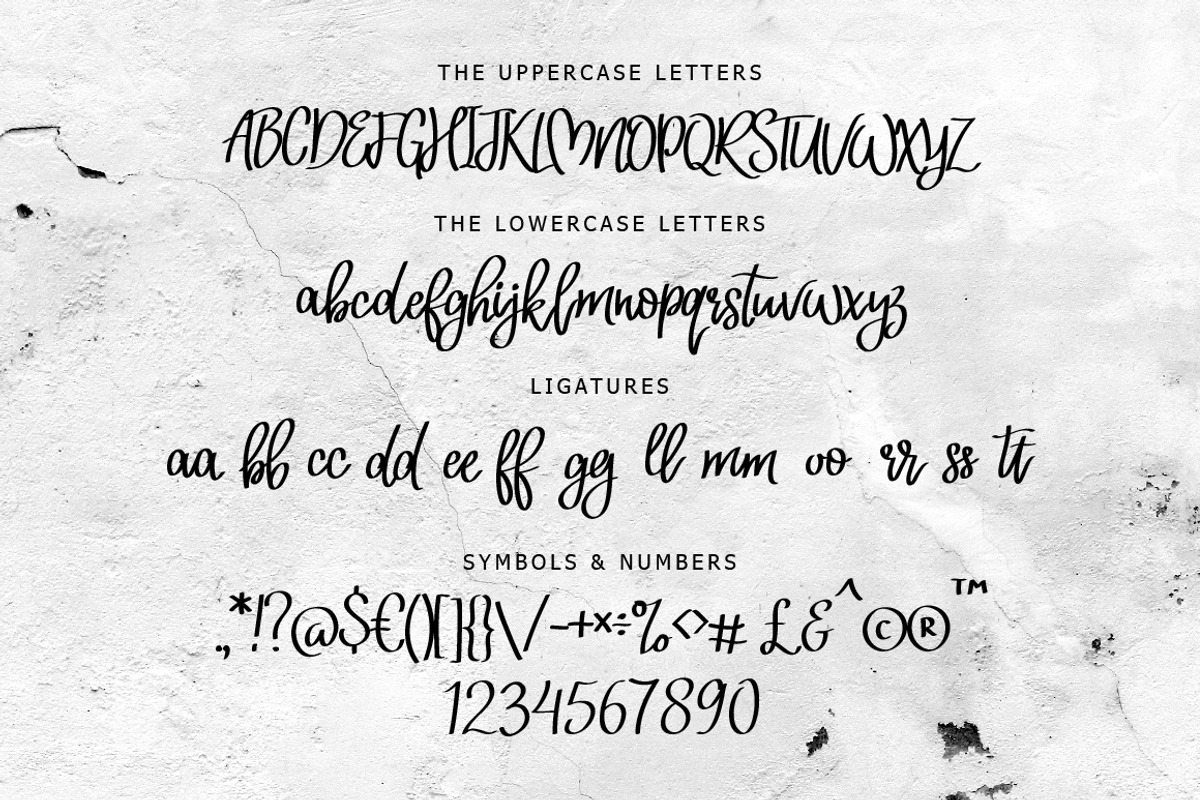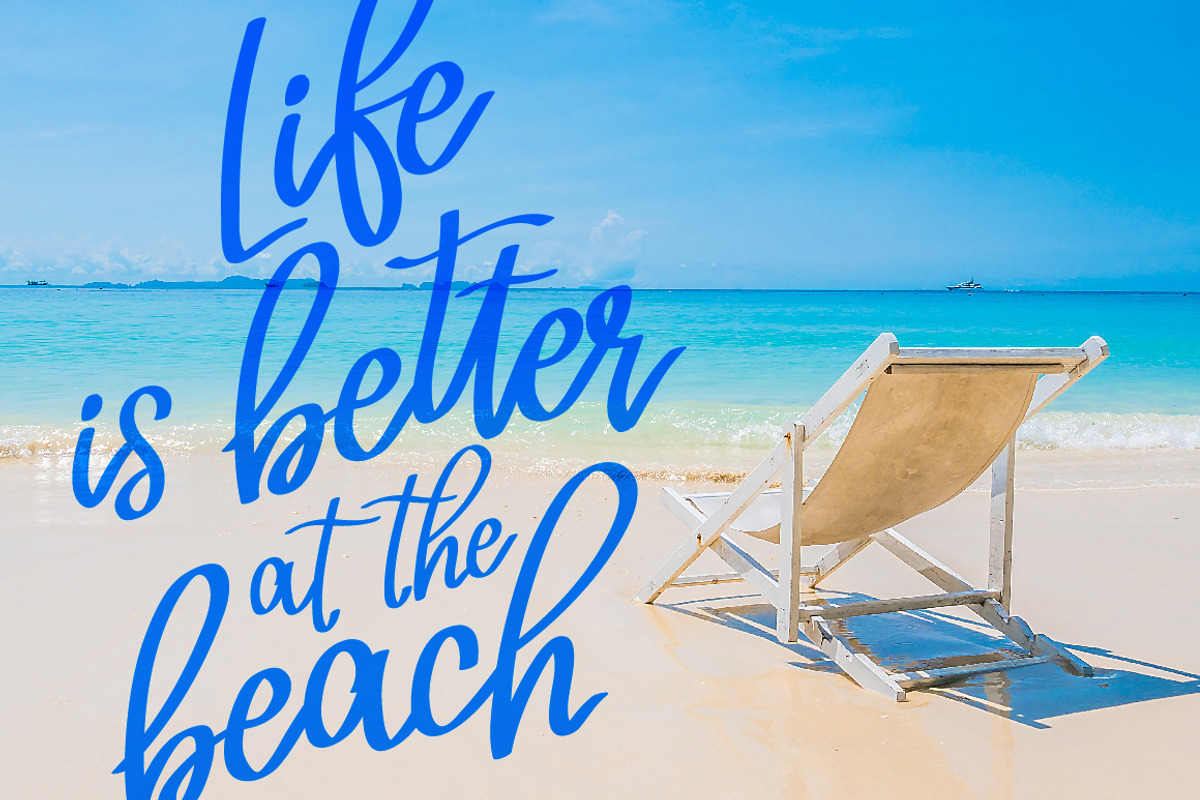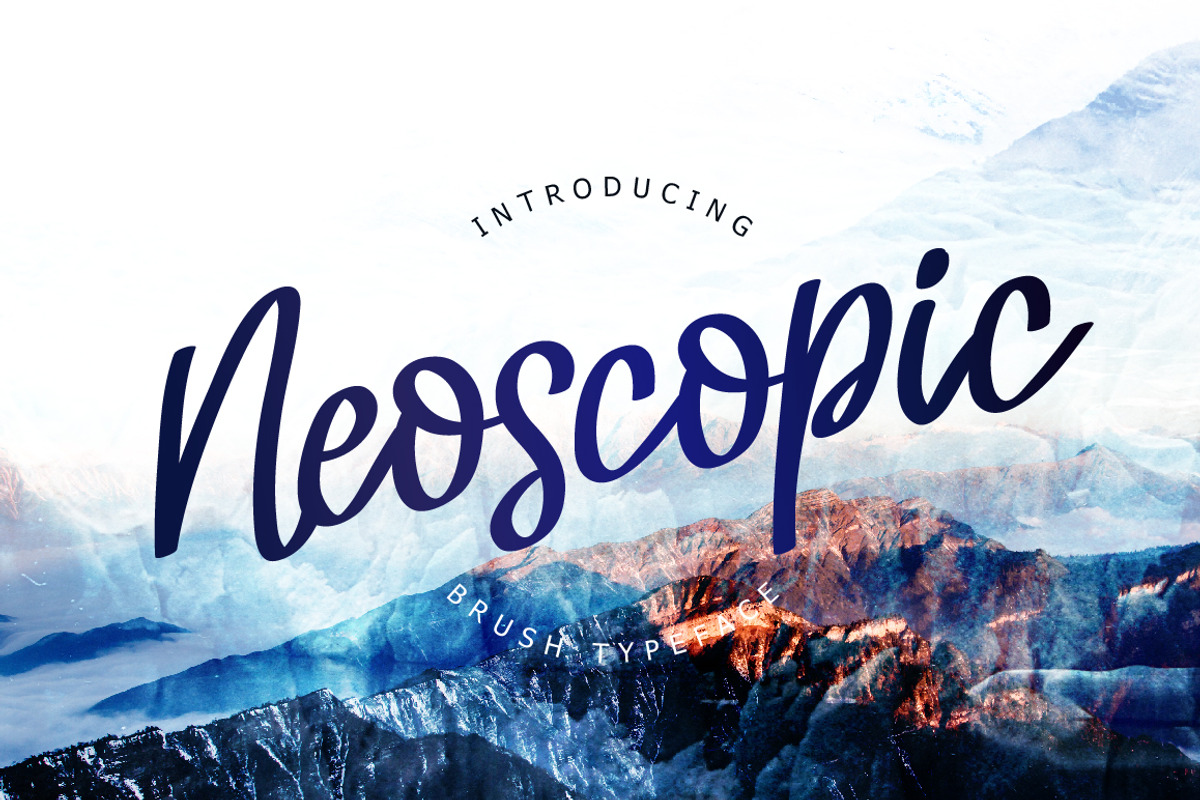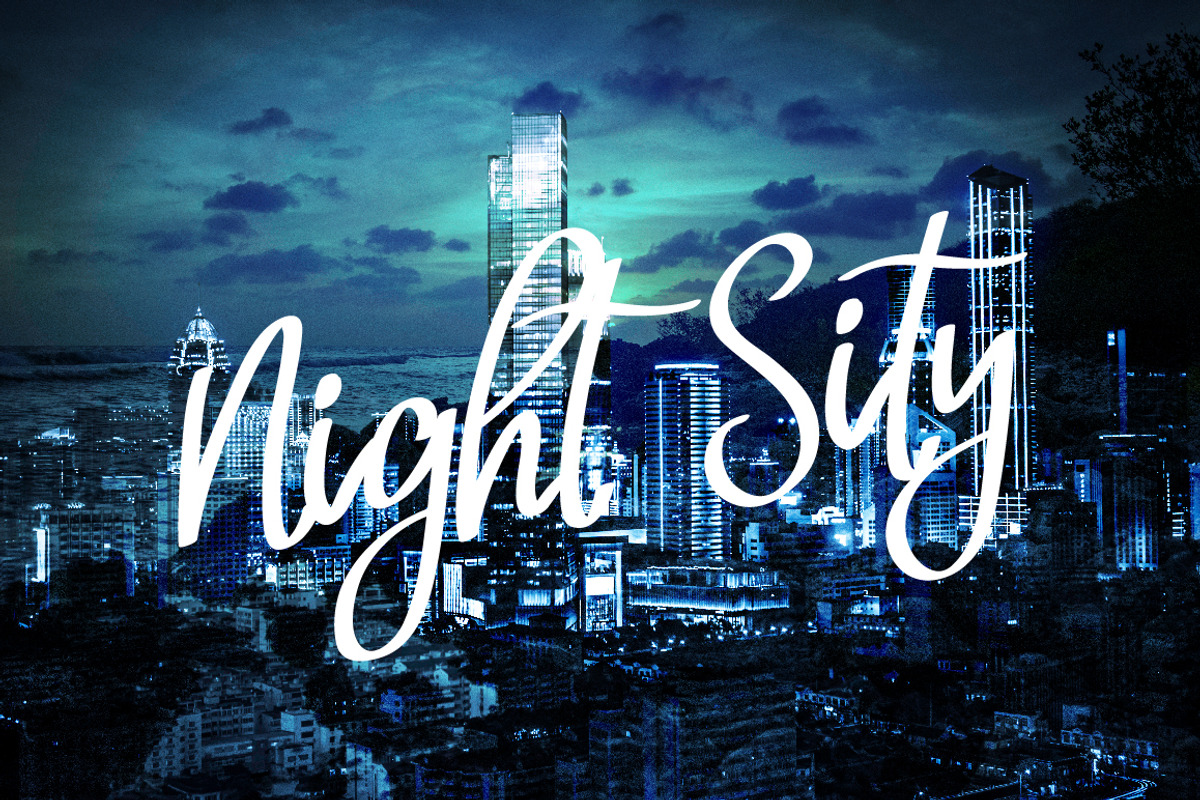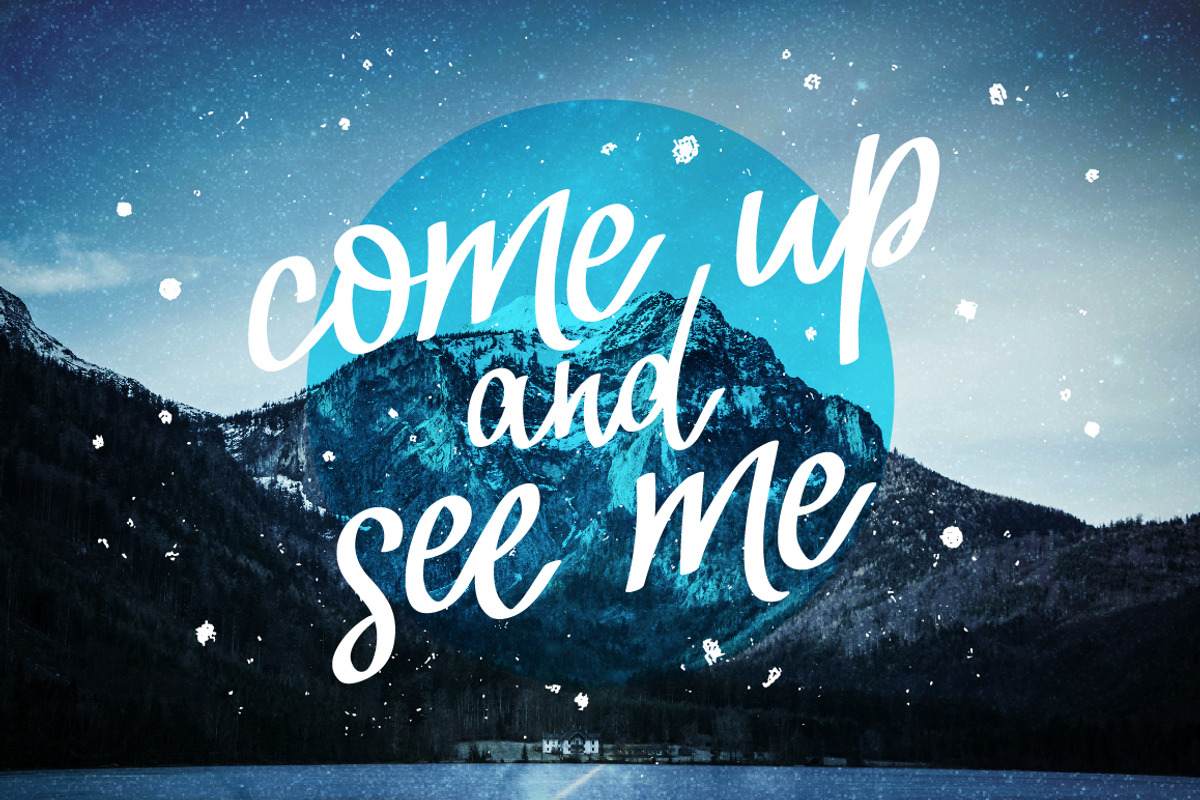
Neoscopic Brush Typeface
Neoscopic Brush Typeface by chekart is a font selected for branding, posters, packaging, typography.
- Neoscopic Brush Typeface comes with uppercase and lowercase characters, large set of punctuation glyphs, numerals and ligatures.
Why Neoscopic Brush Typeface is worth a look
Neoscopic Brush Typeface by chekart fits naturally into Branding, posters, packaging, typography.